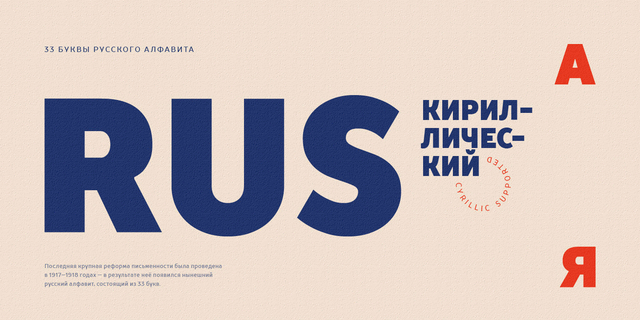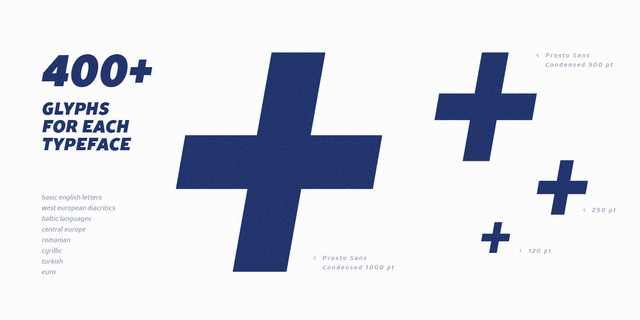
TT Prosto Sans Condenced (10)
‘Prosto’ in the name of the font is translated into Russian as “Simply”. Prosto Sans Condensed is the condensed version of the Prosto Sans font family. We created the simplest font possible, and it will fit perfectly into any design.
Each line of this typeface is emotionally neutral and aims to not emphasize the text in its graphic representation, but only to use the text to convey the meaning. Having Prosto Sans and Prosto Sans Condensed in your collection is like having a universal tool that helps you every day when you need to ‘mend’ or ‘repair’ something. Due to condensed proportions, any text array fits a smaller text field than usual. Typeface designed by Ivan Gladkikh in TypeType studio in 2016.